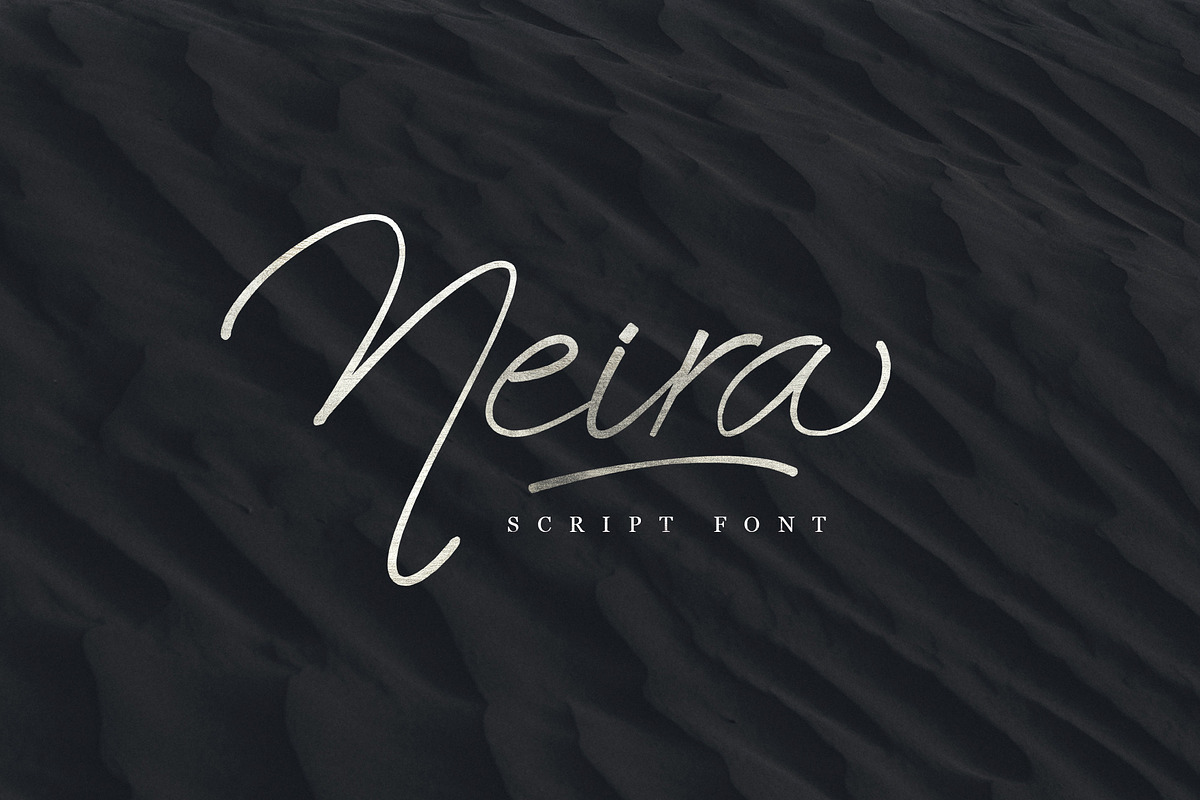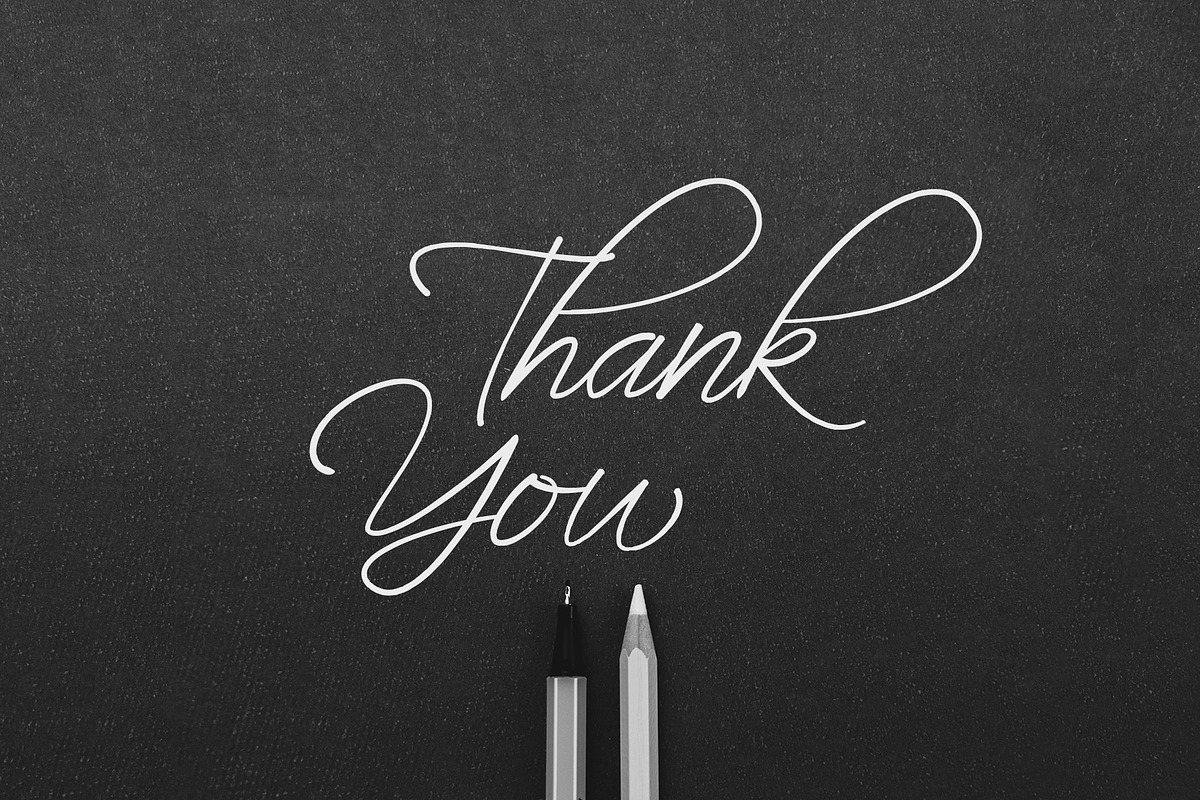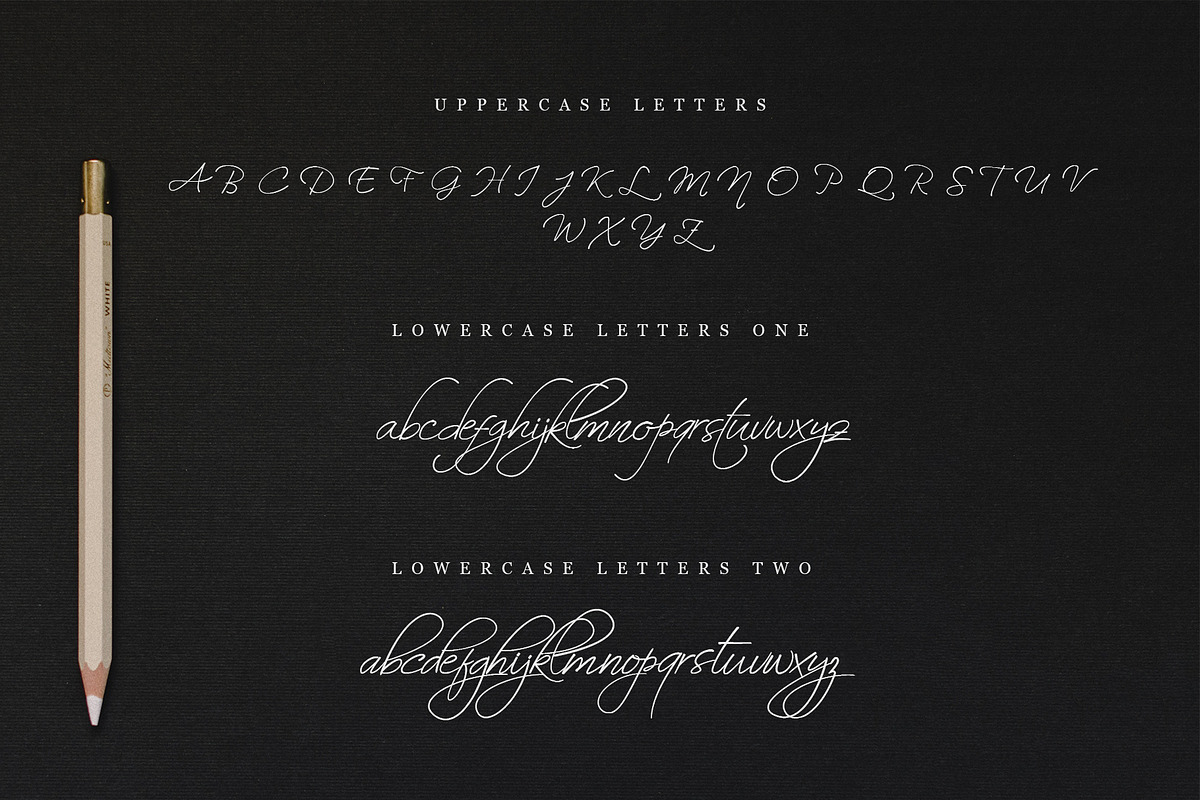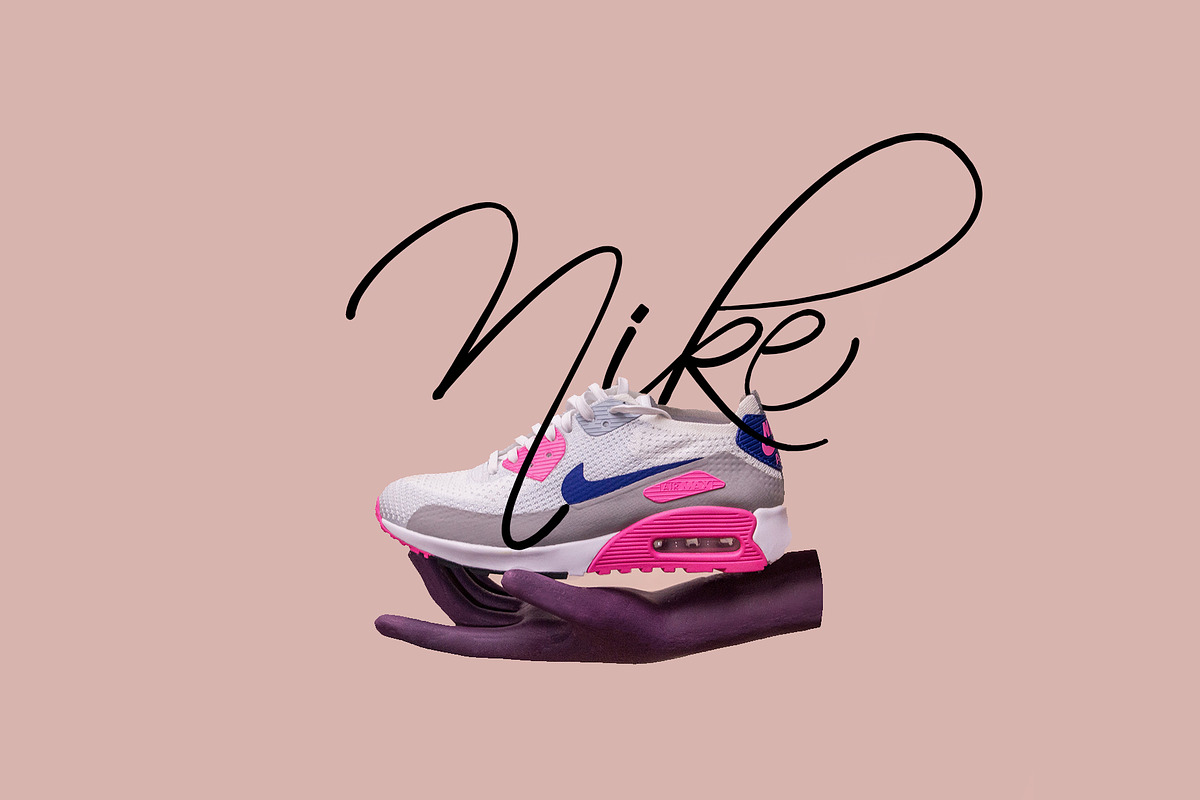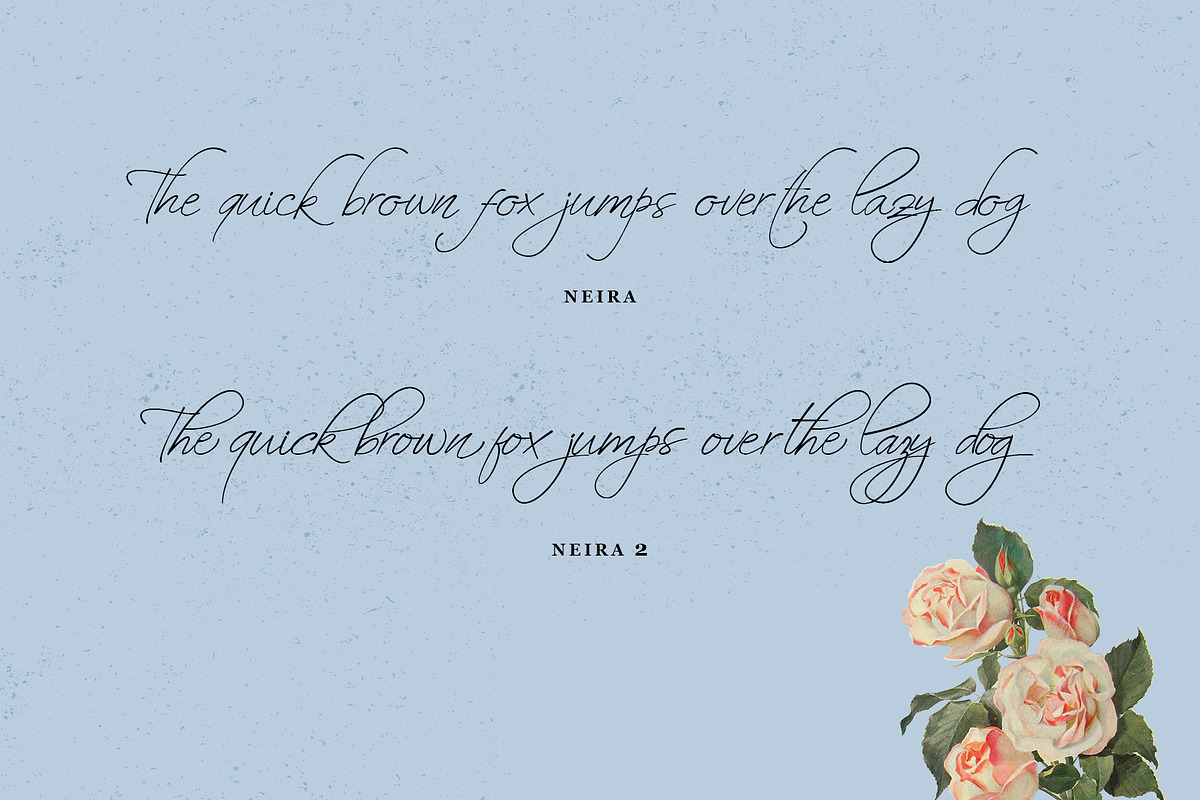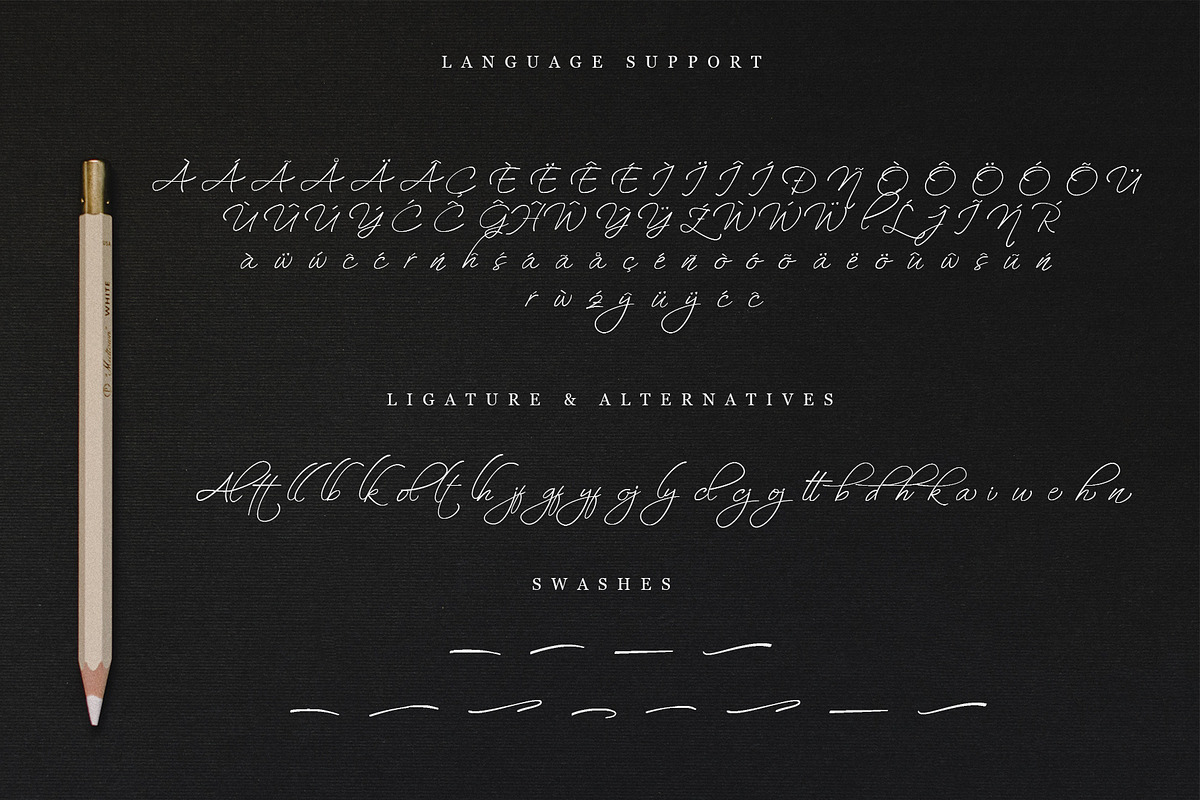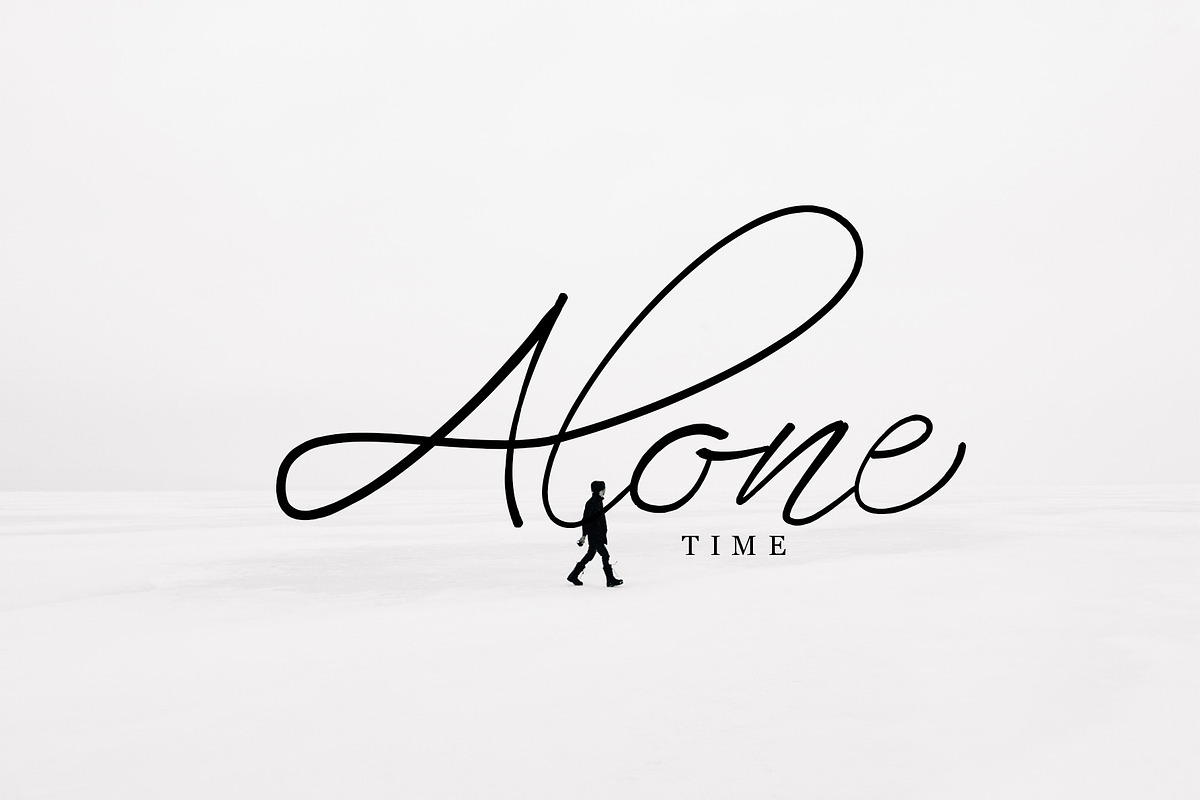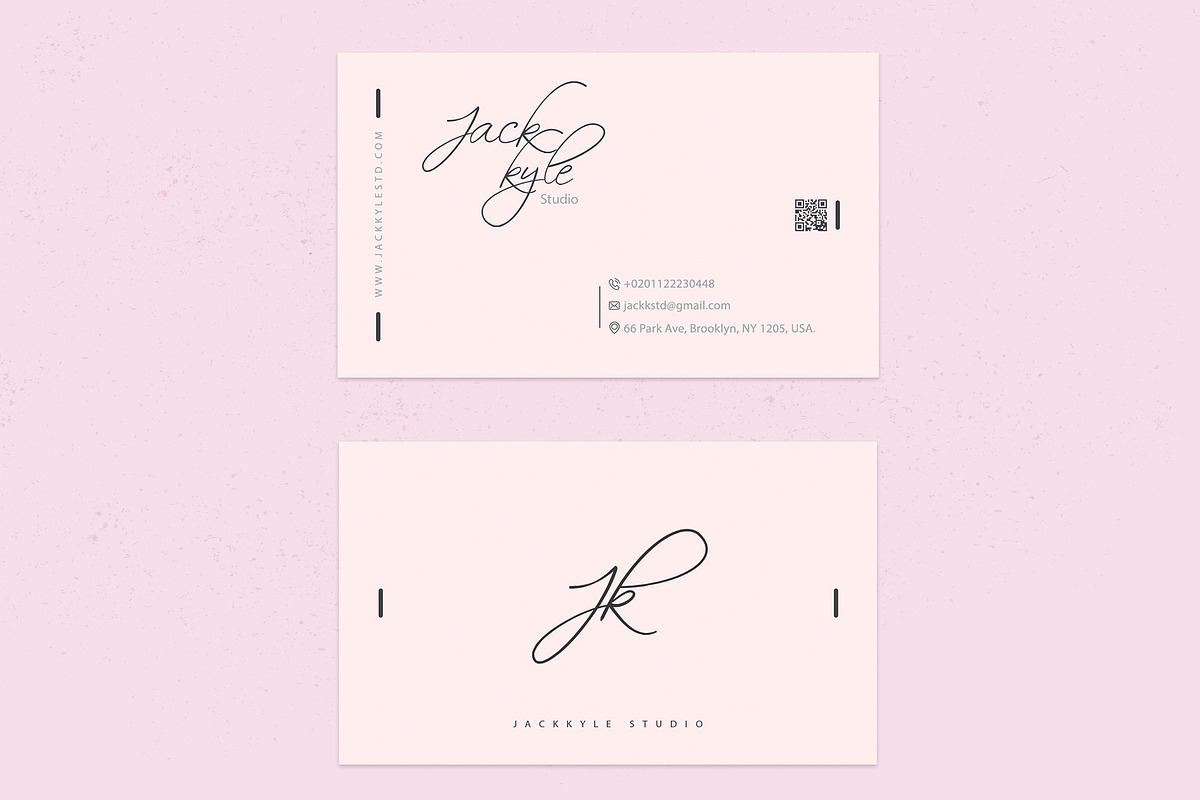
Neira script font
Neira is a lovely script font , this font built with OpenType features and includes swashes, numbers, alternates, ligatures and it also supports other languages .
Neira script font by Emyself Design fits naturally into Branding, posters, packaging, typography.